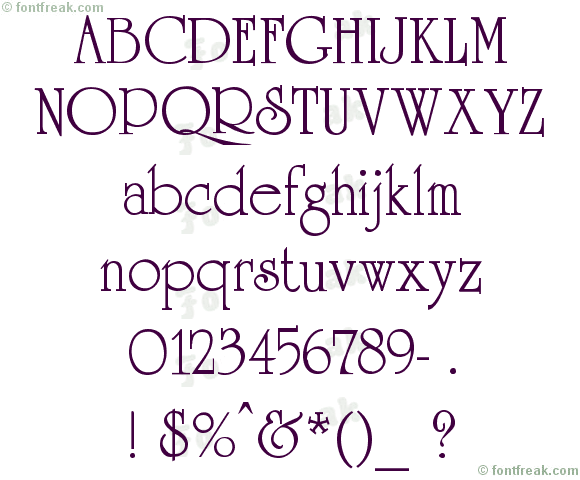
VI University
The VI University font by Vn Fonts is an elegant serif typeface that exudes a classic academic charm. This freeware font features a balanced stroke weight with subtle contrasts, giving it an air of sophistication and readability. Its well-defined serifs and generous spacing enhance legibility, making it an excellent choice for various applications. The font's timeless design incorporates decorative elements that evoke a sense of tradition, perfect for projects that require a touch of formality.
Ideal use cases for the VI University font include wedding invitations, where its graceful curves can create an inviting and romantic atmosphere. It also works wonderfully for academic publications, lending credibility to scholarly articles and research papers. Additionally, this font is suitable for restaurant menus, providing an upscale feel that can elevate the dining experience. Graphic designers may find it particularly appealing for branding materials, as it conveys professionalism and reliability. Content creators looking to craft visually striking presentations will also benefit from its clean yet sophisticated style.
The target audience for the VI University font encompasses graphic designers, small business owners, and content creators who value aesthetics and functionality in their projects. Its versatility allows it to seamlessly fit into a variety of design contexts, making it a valuable addition to any designer's toolkit.
What sets the VI University font apart is its blend of classic elegance and modern usability. Its timeless appeal and free availability make the VI University font free download an attractive option for those looking to enhance their designs without compromising quality. Whether for formal events or contemporary branding, this font stands out as a reliable choice that can elevate any project.